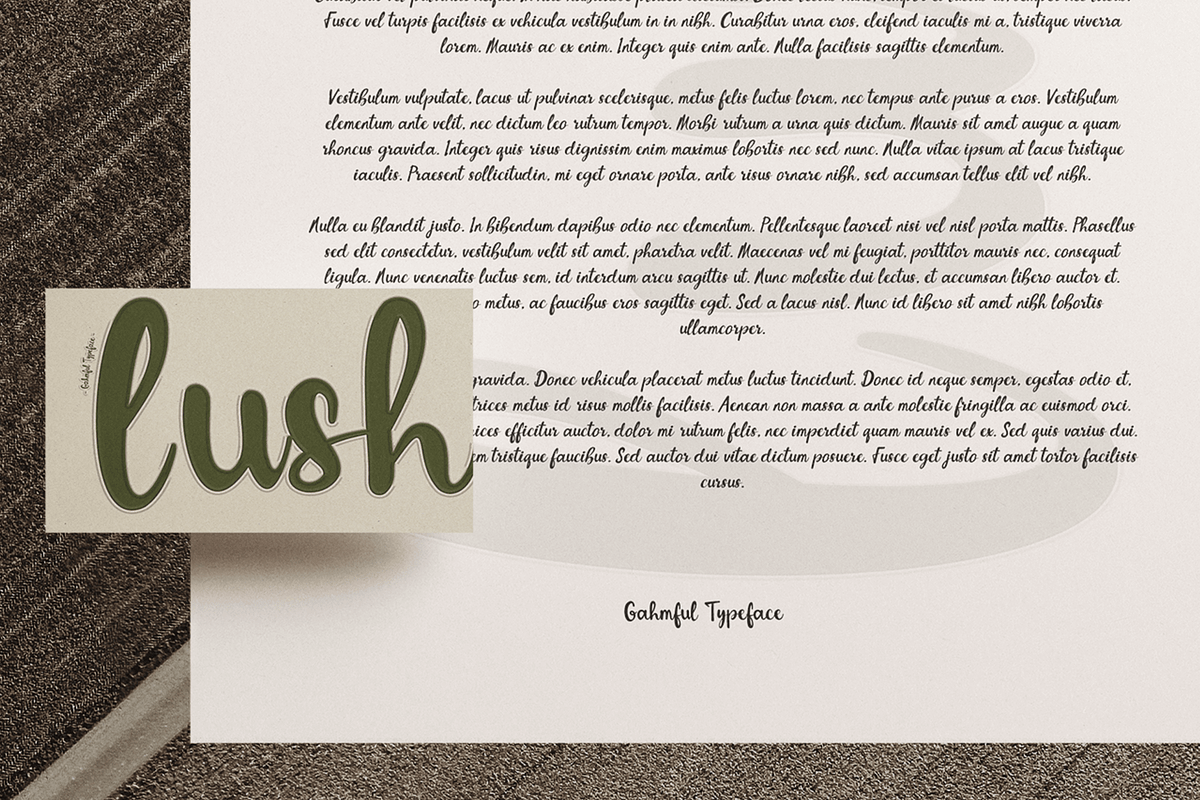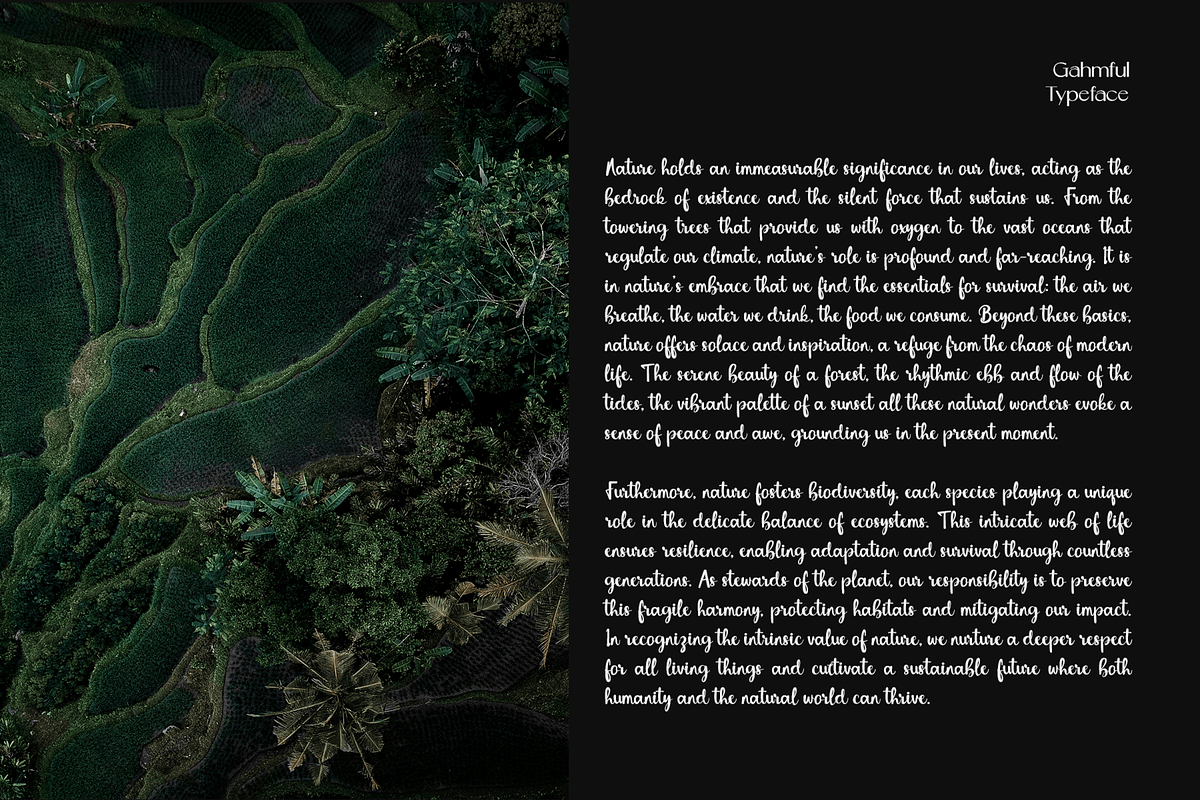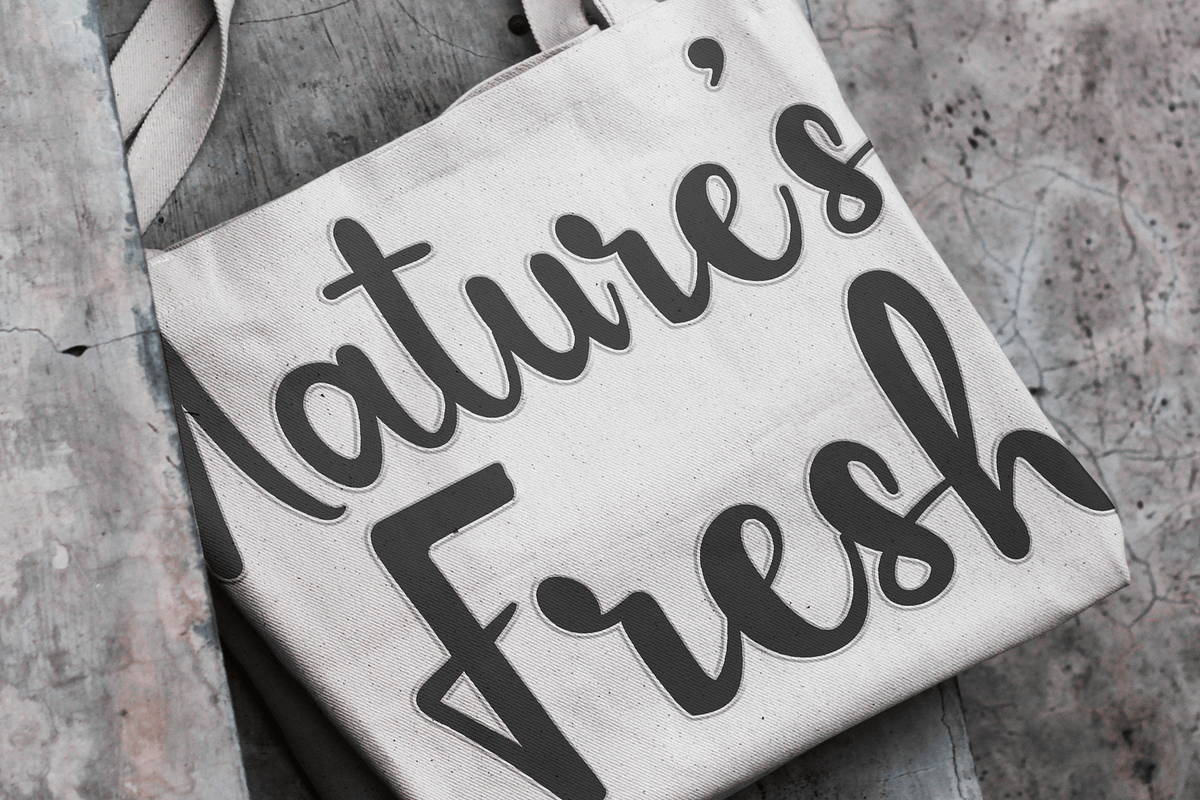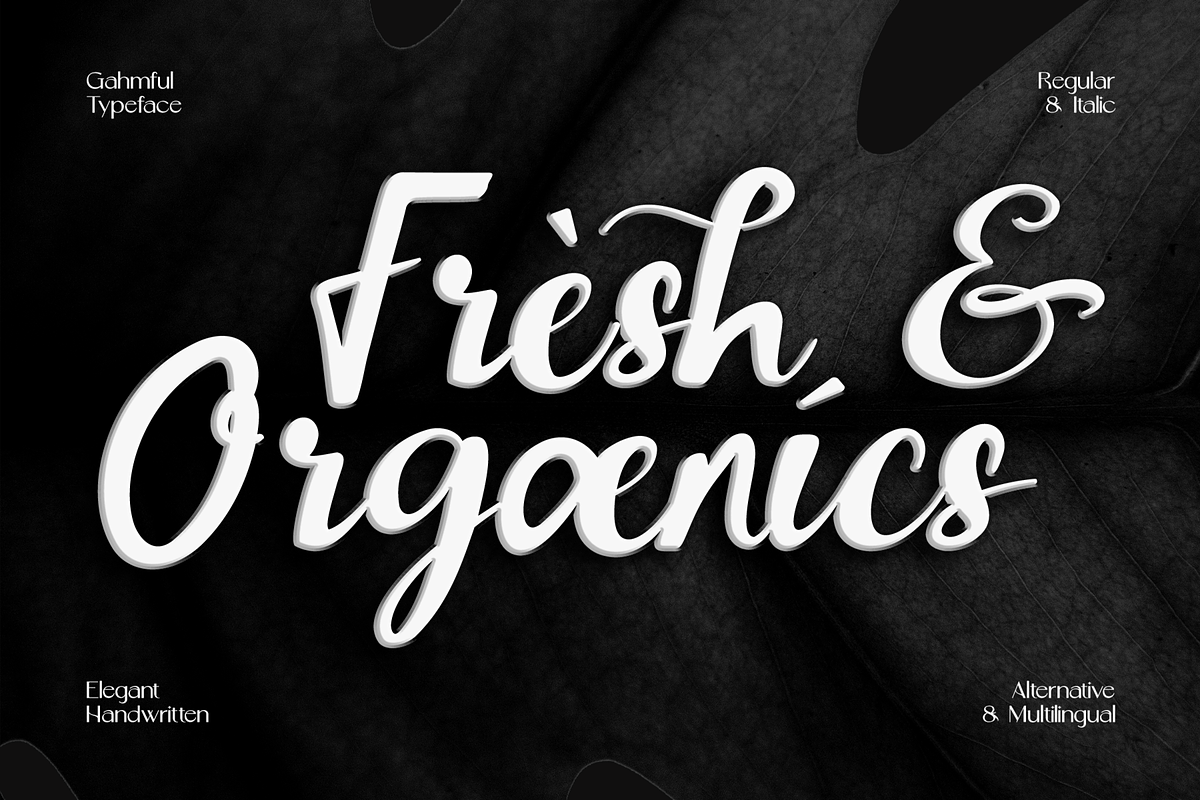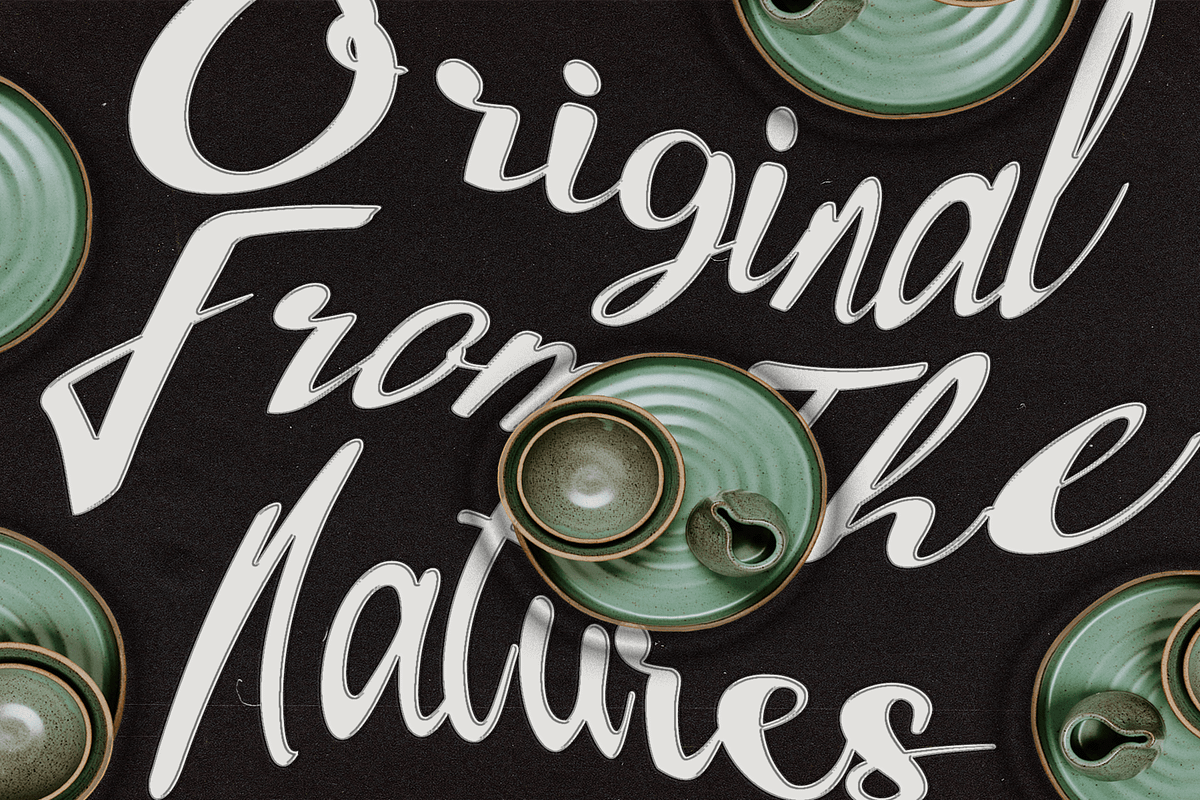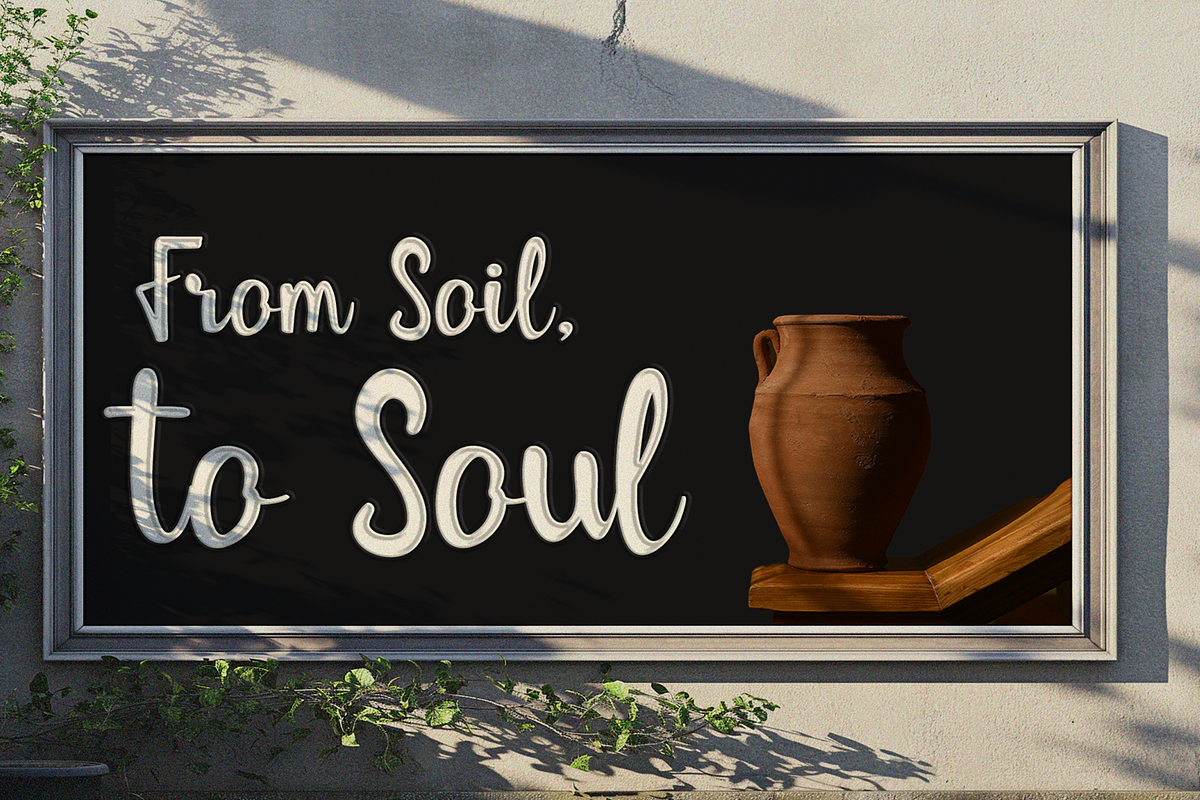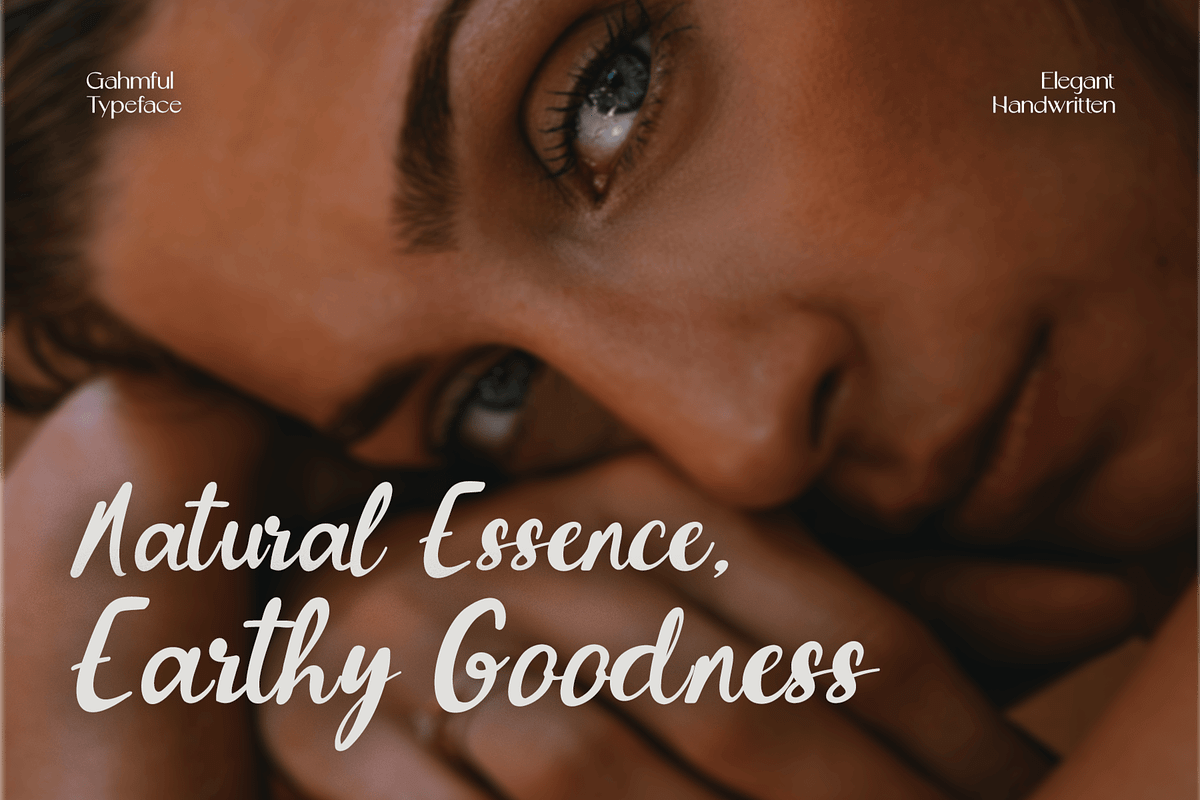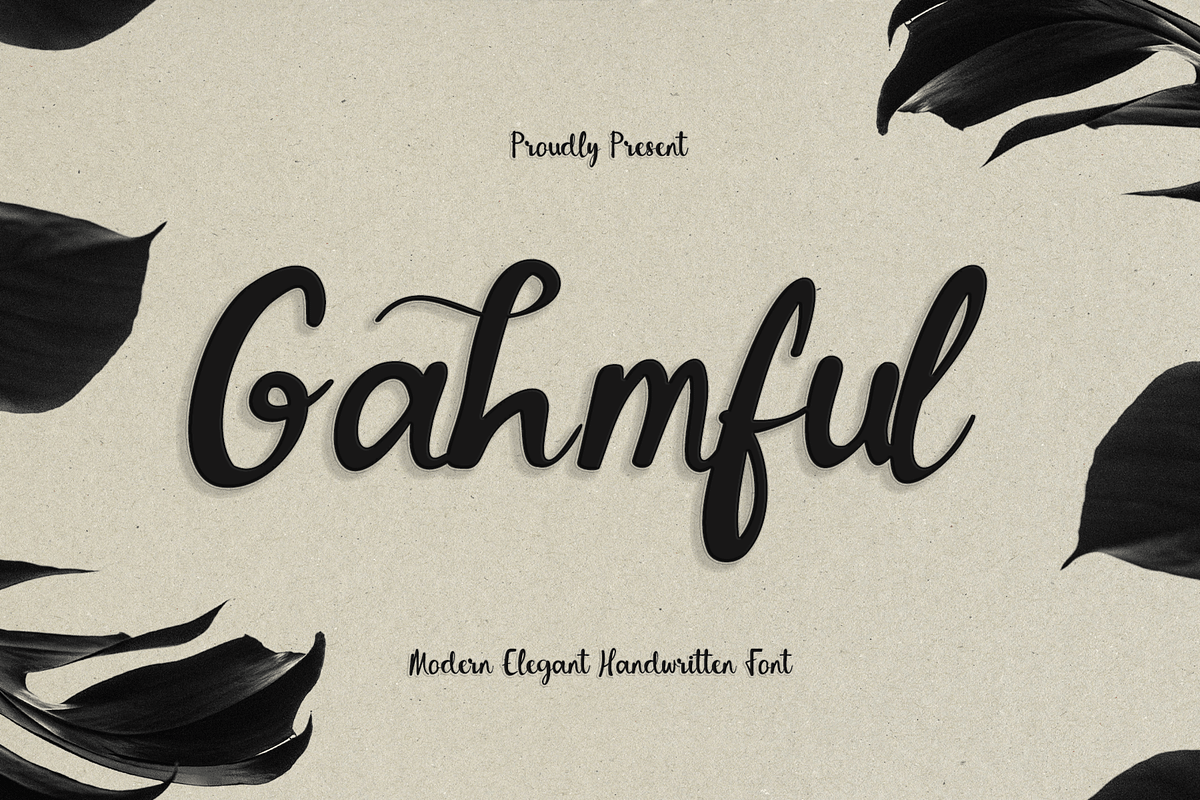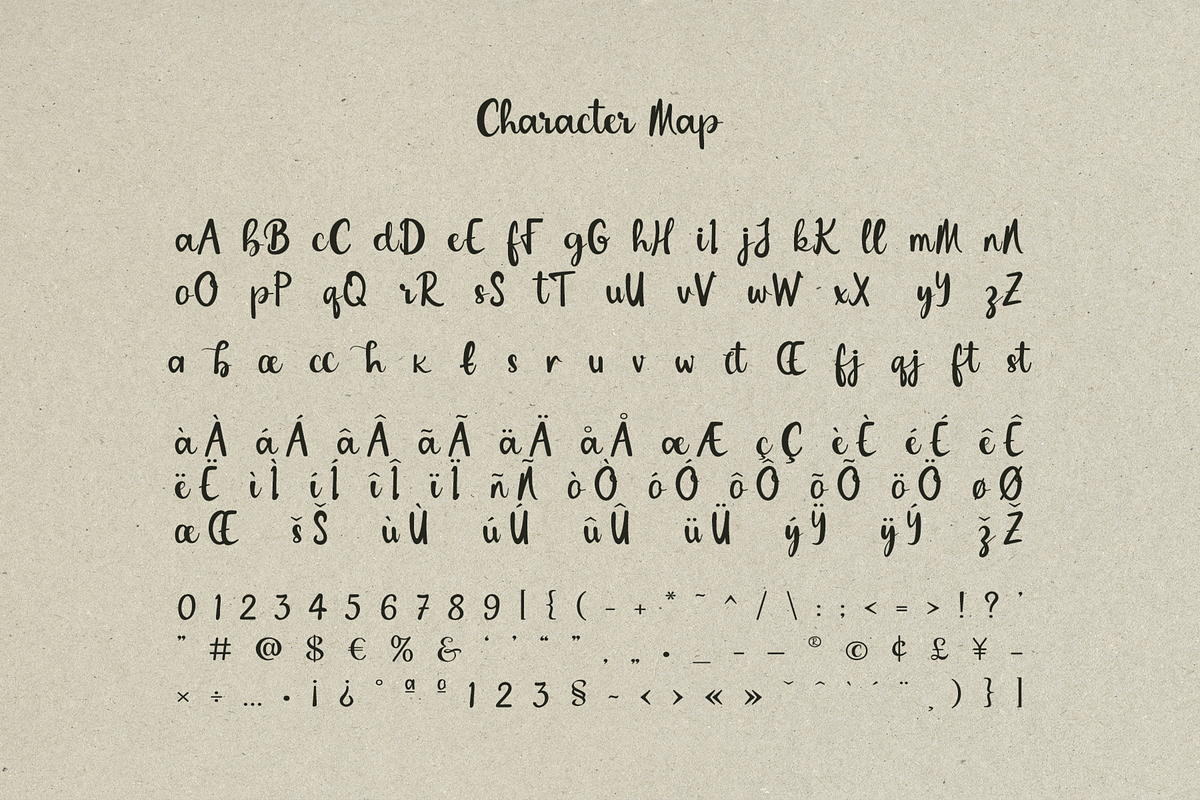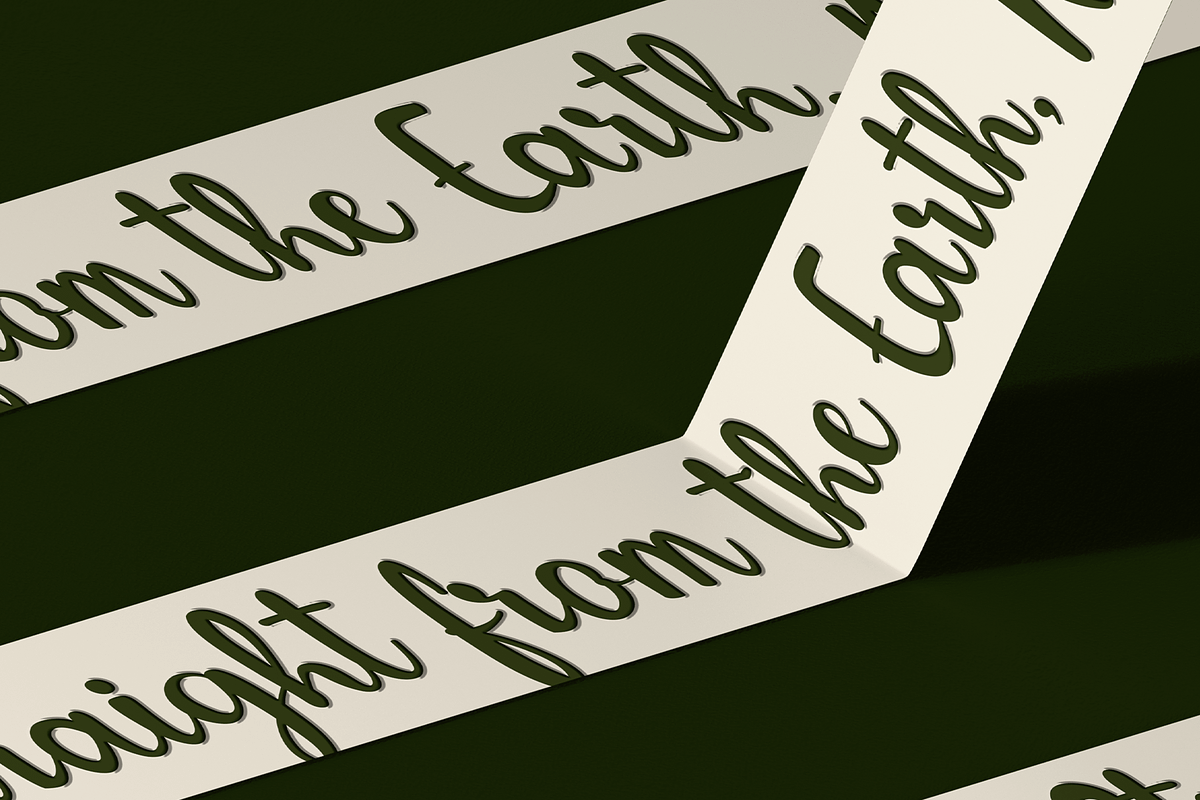
CF Gahmful - Elegant Handwritten
Gahmful is a bold and expressive handwritten font that combines modern style with classic charm. Its fluid brushstrokes create a dynamic and natural look, perfect for adding personality to your designs. Available in both regular and italic styles, Gahmful offers versatility without compromising its elegant aesthetic.
- Standard Character A-Z, a-z, 0-9, Punctuation & symbols
- Regular and Italic Style
- Lots of Alternates and Ligatures